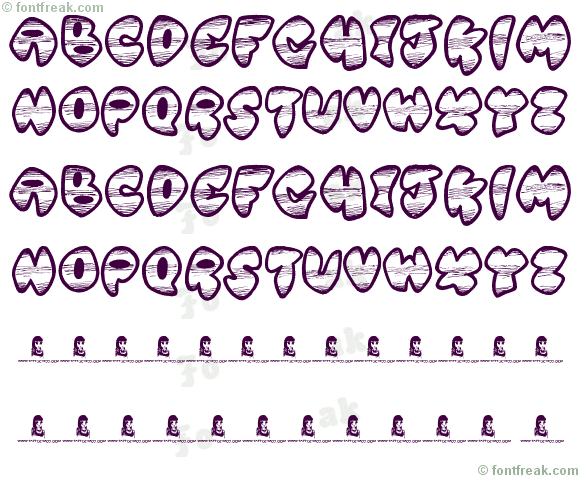
Ghetto Master
About Ghetto Master
Ghetto Master is a striking display font designed by Jonathan S. Harris, embodying a unique blend of urban flair and artistic expression. As a decorative typeface, it showcases a playful yet edgy style that is perfect for projects looking to make a bold statement. The font features a chunky, uneven stroke weight that adds character and a handcrafted feel, while its distinct letterforms are characterized by rounded edges and an organic, graffiti-inspired aesthetic. The irregular spacing between letters enhances its whimsical nature, making it ideal for capturing attention.
This font is particularly well-suited for creative applications such as streetwear branding, music event posters, and urban art exhibitions. Its vibrant personality can also be leveraged in marketing materials for local businesses, especially those that want to highlight a youthful, dynamic approach. Additionally, Ghetto Master can serve as an eye-catching choice for social media graphics, attracting the attention of a younger audience.
Targeting graphic designers, small business owners, and content creators alike, Ghetto Master offers a versatile option for those looking to convey a sense of authenticity and creativity in their work. Whether you’re designing promotional materials, album covers, or even custom merchandise, this font can add a distinctive touch that resonates with your audience.
What sets the Ghetto Master font apart is its ability to encapsulate the essence of urban culture while maintaining an artistic edge. Its unique design elements and free availability as a freeware make it a valuable resource for anyone looking to elevate their creative projects. For those interested, the Ghetto Master font free download provides an opportunity to explore its diverse applications and unleash your creativity.